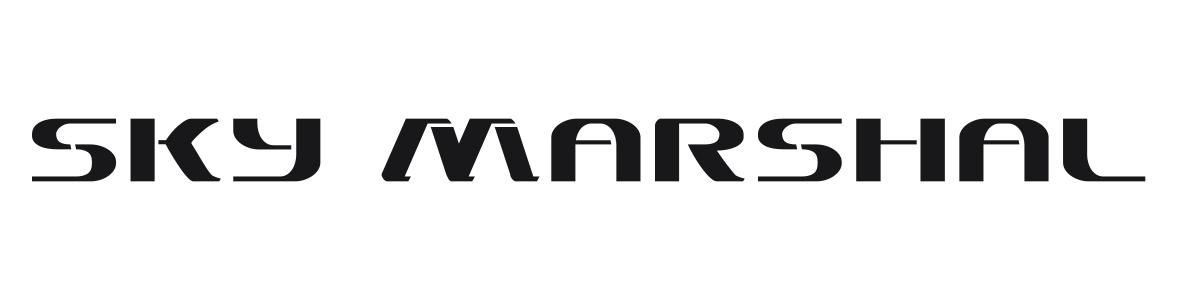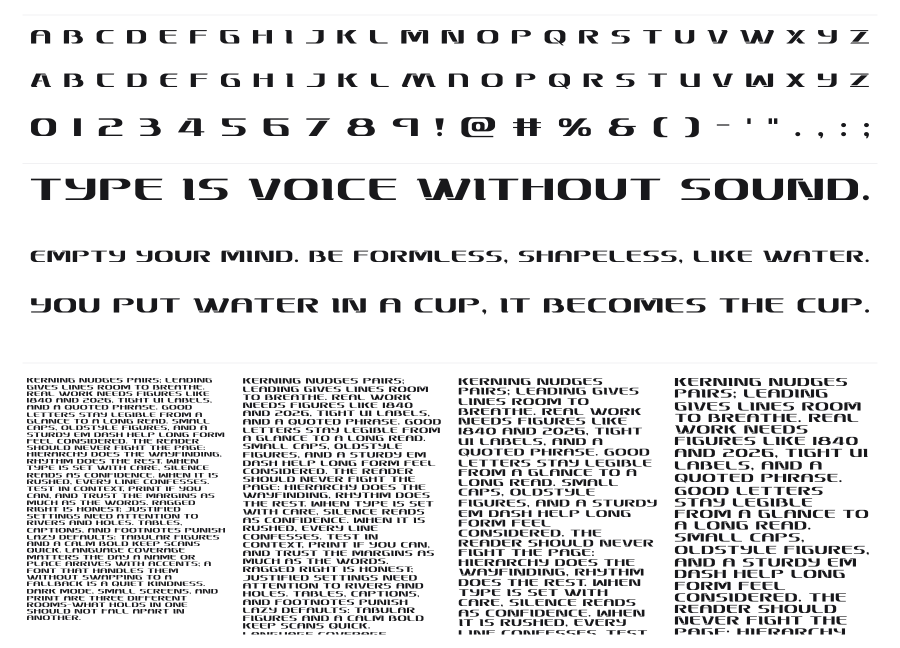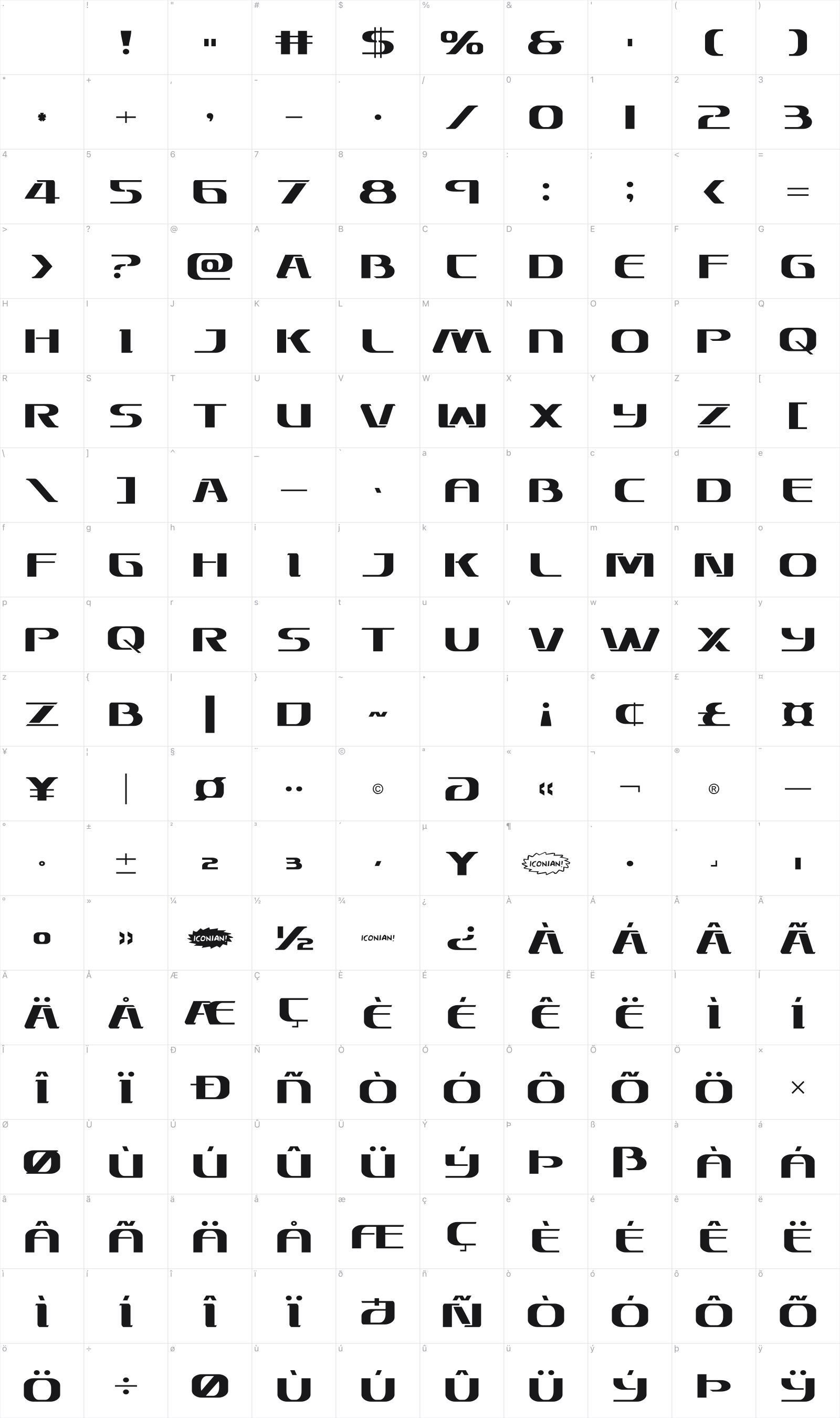
Sky Marshal
Sky Marshal is a heavy geometric sans with notched joints and flat angular terminals that give it a hard, retrofuturist edge. The wide proportions and bold weight project authority, drawing on military and aerospace design traditions. Strong at large sizes for titles, posters, and anything that needs to feel tactical.